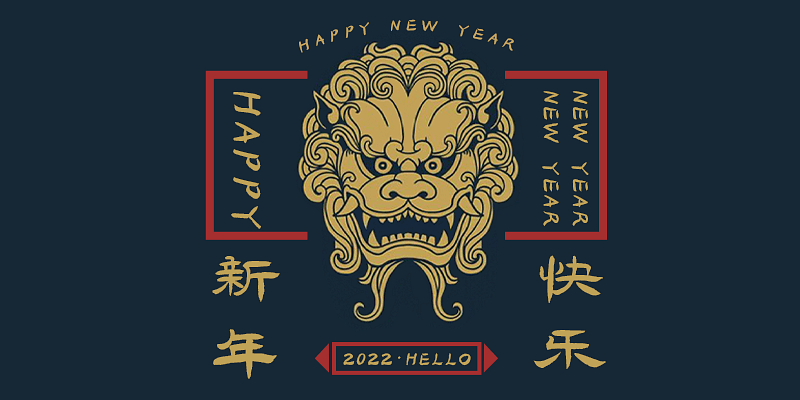
HelloFont ID Jun Li Font Free Download is an elegant and versatile typeface that combines the smoothness of modern design with a hint of traditional Chinese calligraphy. This font features clean, balanced strokes, making it perfect for a wide range of design projects, including branding, signage, editorial design, packaging, and cultural-themed materials.
The HelloFont ID Jun Li Font is built for readability and style, making it ideal for both print and digital media. Its refined characters lend a sense of sophistication, while maintaining an approachable and professional appearance. Whether you're working on high-end branding or personal projects, this font adds a touch of cultural depth and modern elegance.